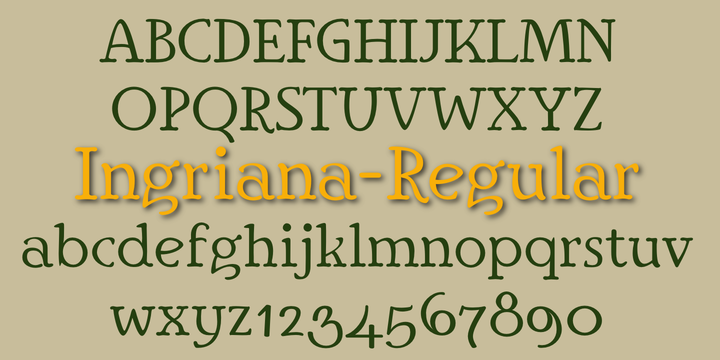
Ingriana
Designed by: Robert Schenk
Designed when: 1992
Ingriana
Ingriana is an informal, serifed typeface which is highly readable at small point sizes.